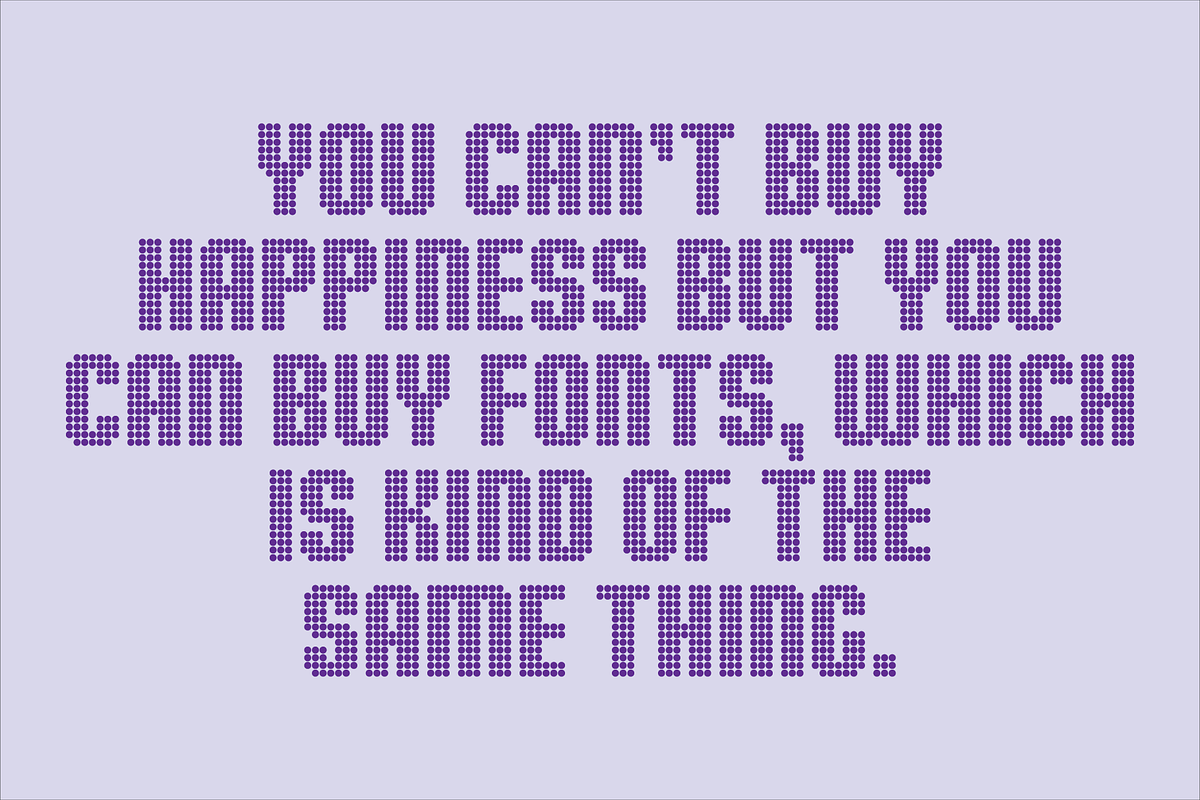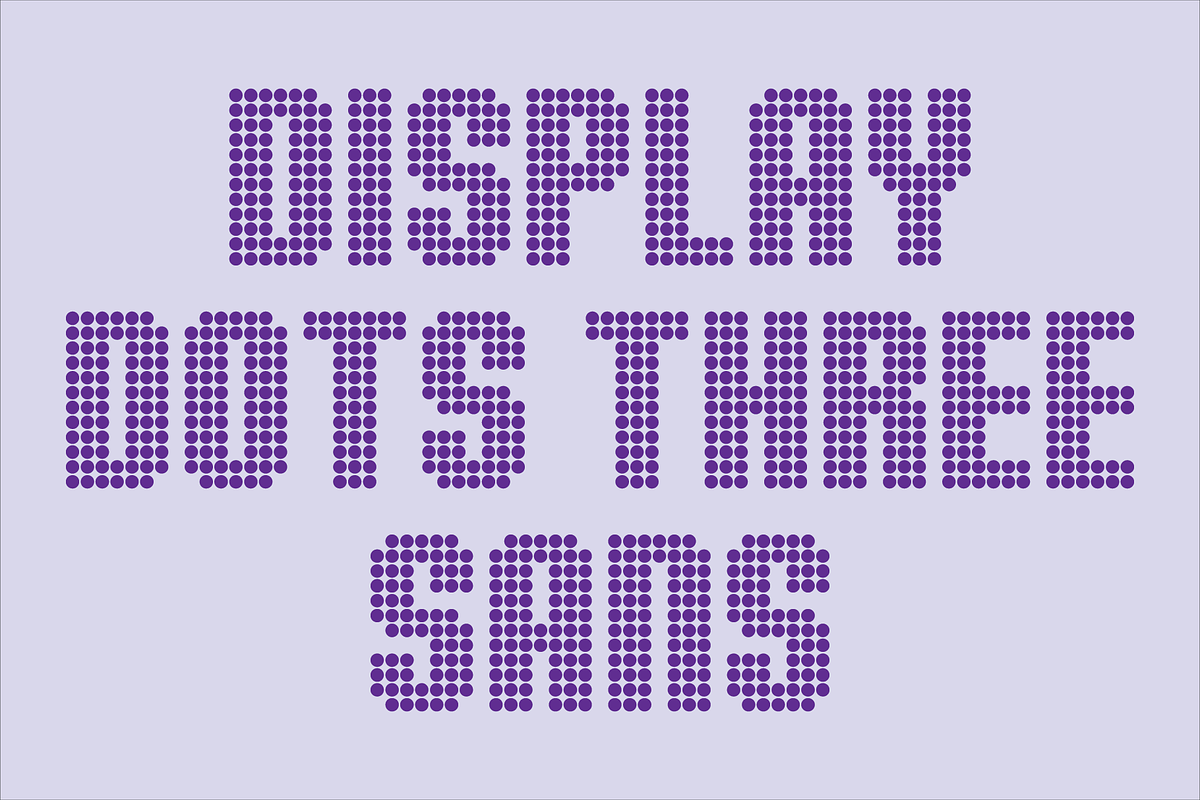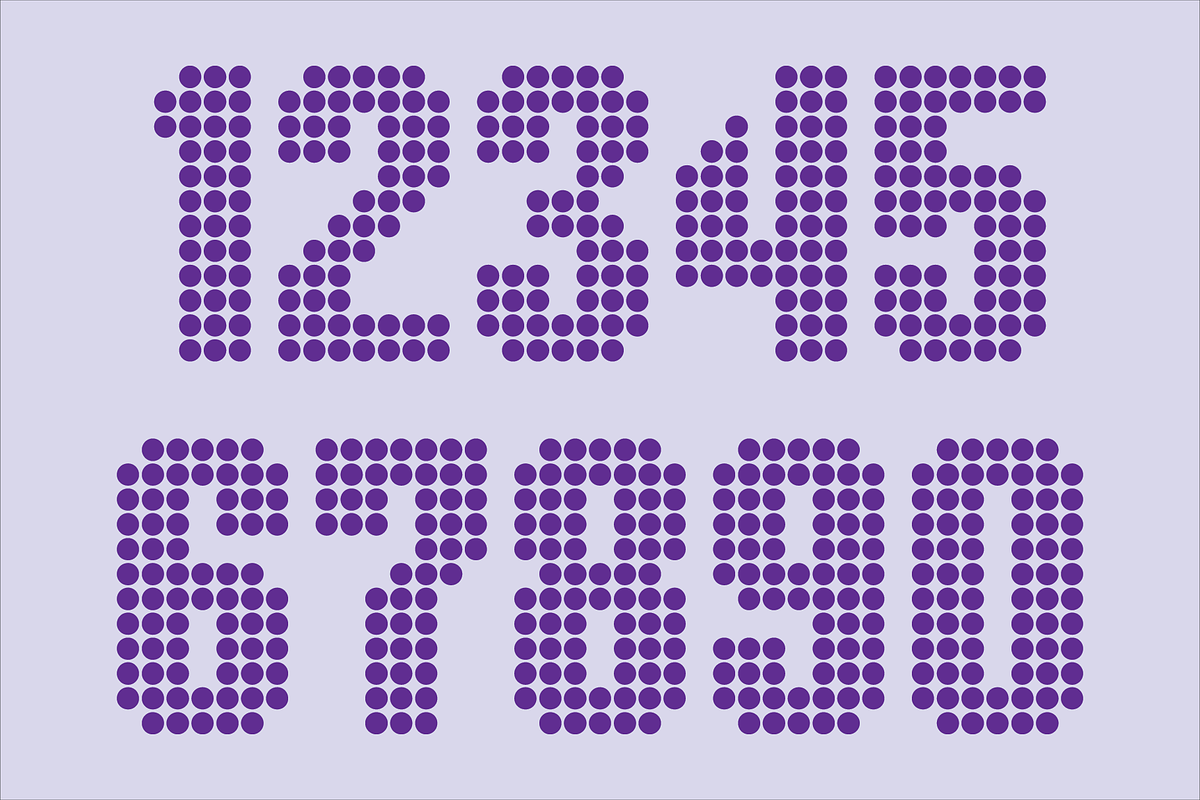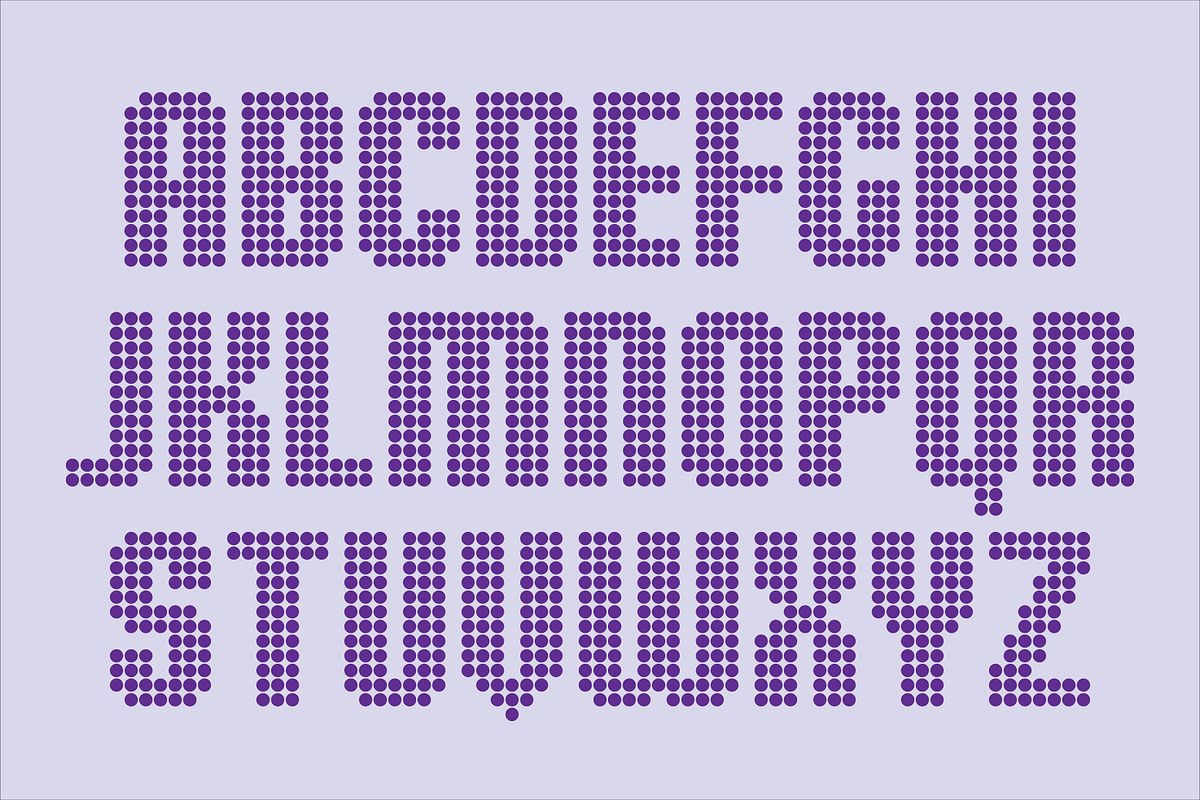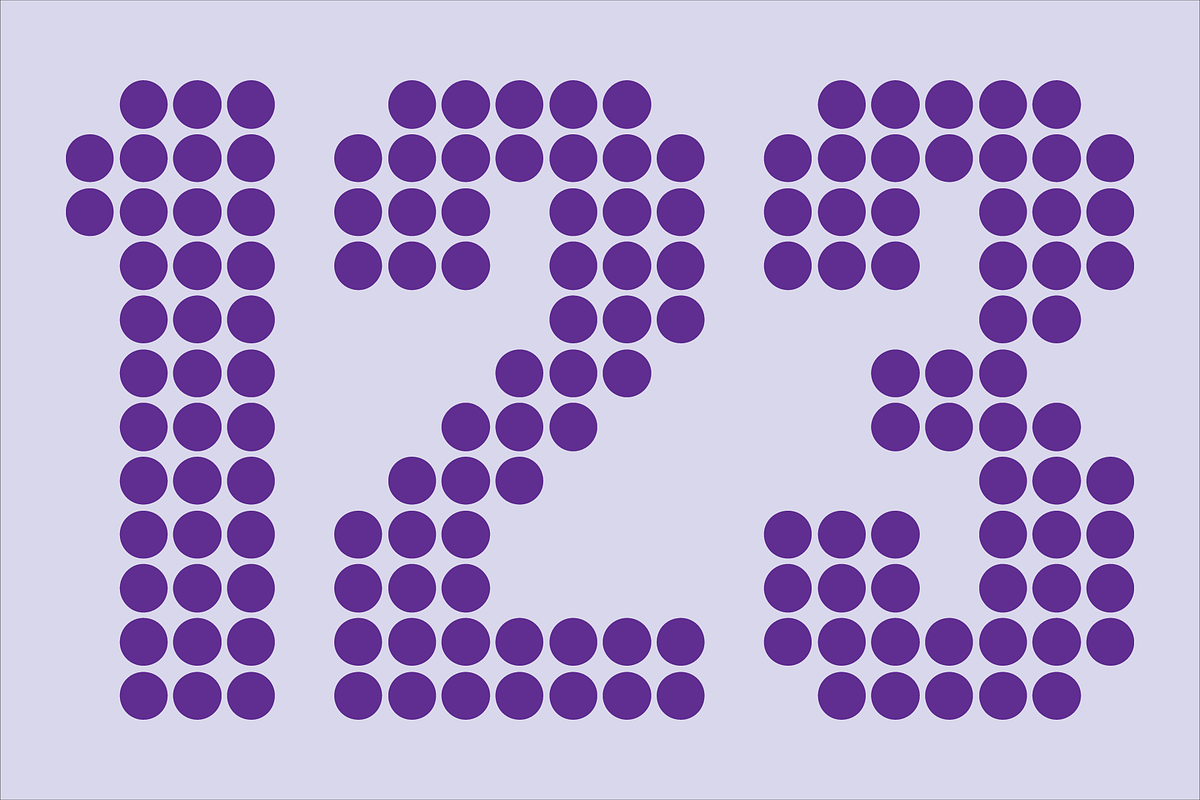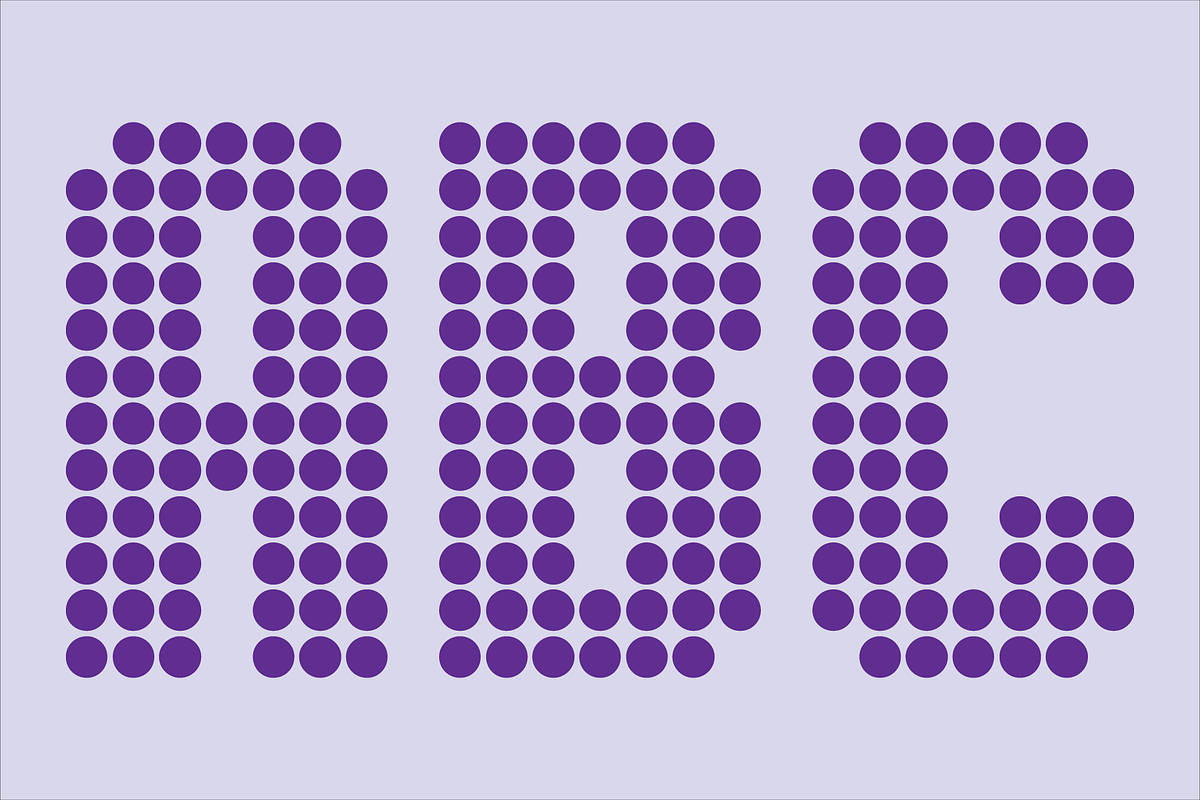
Display Dots Three Sans Font
Display Dots Three Sans is a display font not intended for text use. It was designed specifically for display, headline, logotype, branding, and similar applications. It has an uppercase alphabet, numbers, dollar, pound and euro signs, and basic punctuation. The cap height is 12 dots tall.